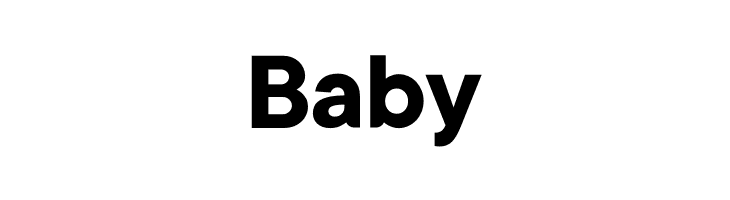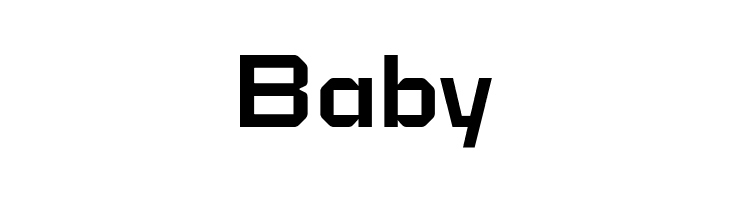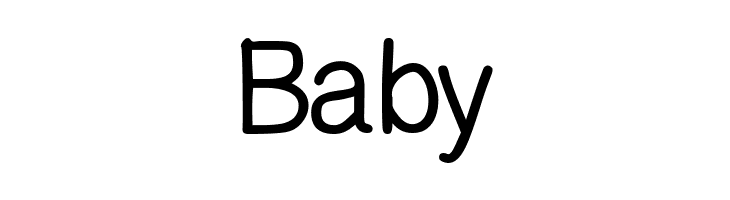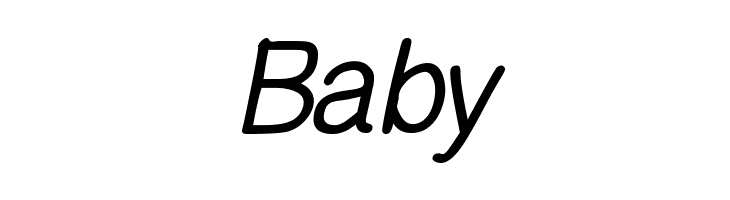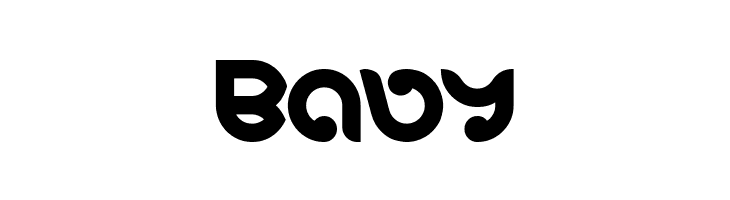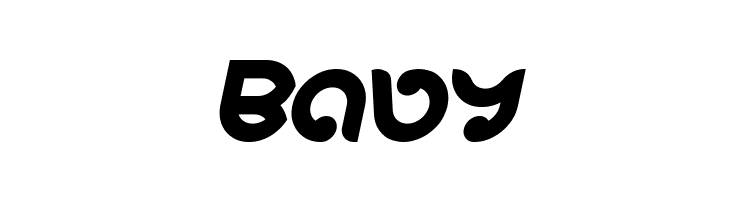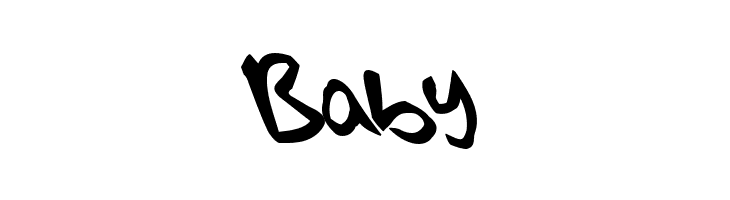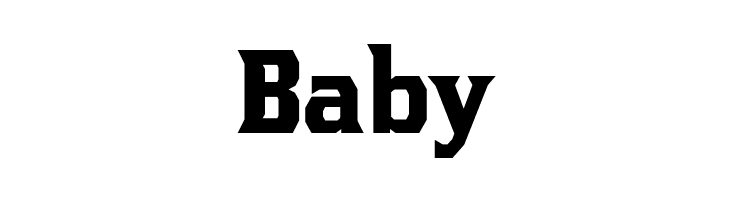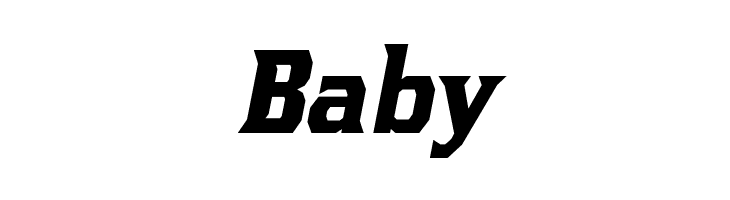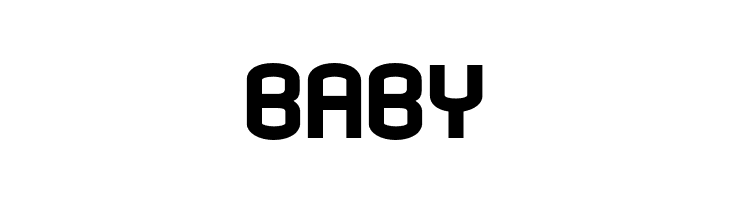
A decorative font with bold, floral-themed characters and playful embellishments.
A bold, playful font with a whimsical, hand-drawn style.
A bold, modern sans-serif font with clean lines and a strong presence.
A bold, futuristic font with geometric and rounded elements.
A bold, italic typeface with a modern, futuristic design and strong visual impact.
A bold, rounded sans-serif font with a friendly and modern appearance.
A bold, italicized modern font with sleek, consistent strokes and balanced spacing.
A bold, futuristic font with angular, geometric characters.
A bold, angular font with a vintage, geometric style.
A bold, italicized font with sharp angles and high contrast.
A bold, angular font with a vintage yet modern appeal, ideal for impactful displays.
A bold, angular font with a vintage yet modern style, perfect for striking headlines.
A bold, italicized font with sharp angles and a dynamic presence.
A bold, italicized font with sharp angles and dynamic energy.
A modern, geometric sans-serif typeface with bold, uniform strokes.
A bold, modern sans-serif font with clean lines and excellent legibility.
A modern, geometric sans-serif font with a clean and minimalistic design.
A modern, geometric sans-serif font with a clean and professional look.
A thin, modern font with geometric shapes and uniform strokes.
A bold, expressive handwritten font with dynamic and artistic flair.
A bold, expressive handwritten font with dynamic strokes.
A bold, geometric typeface with a modern and technical aesthetic.
A bold, oblique font with a modern and dynamic style.
A bold slab serif font with strong lines and minimal contrast.
A bold, modern font with thick strokes and tight spacing, perfect for impactful designs.
A bold, geometric font with high contrast and tight spacing, ideal for impactful headlines.
A bold, geometric, and modern font with a strong presence.
A bold, geometric font with rounded edges and a modern style.
A bold, geometric font with high contrast and a modern aesthetic.
A bold, geometric font with uniform strokes and tight spacing, ideal for headlines.